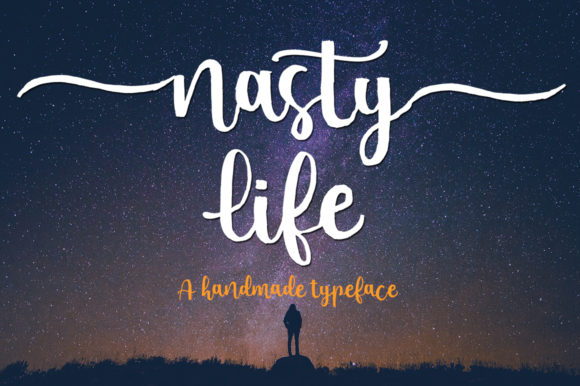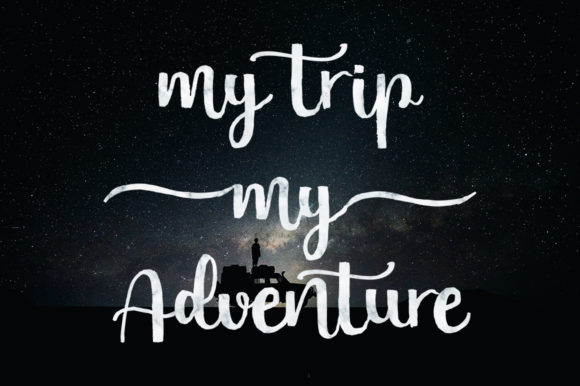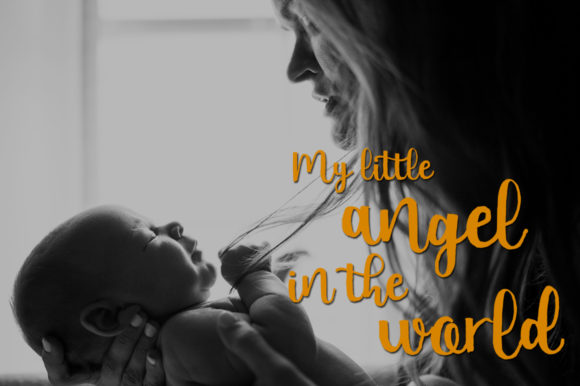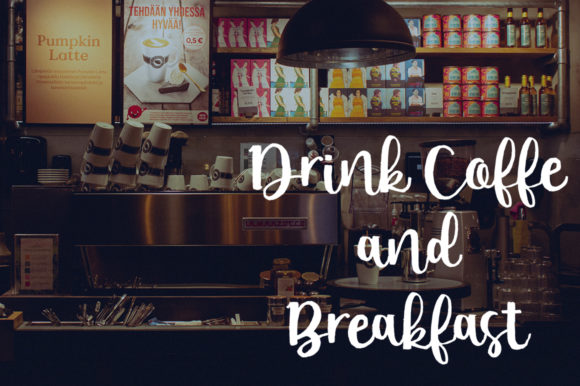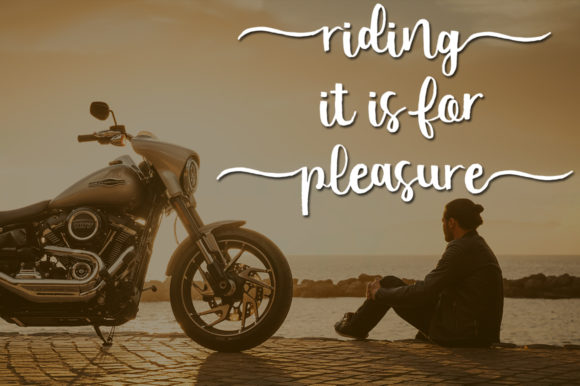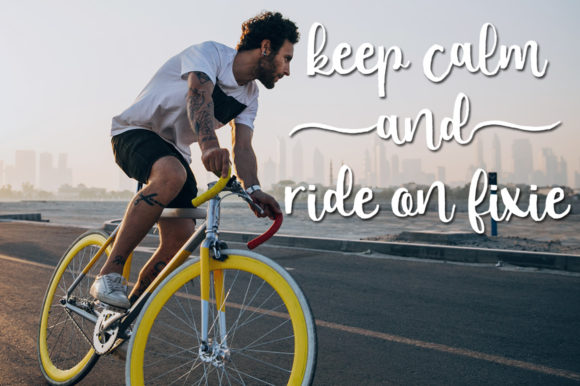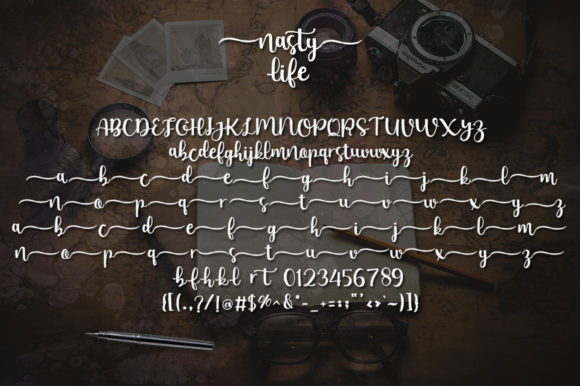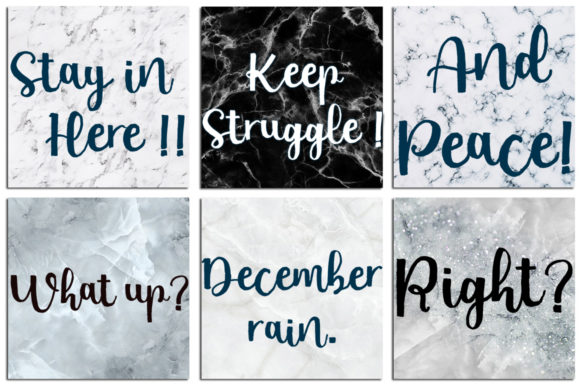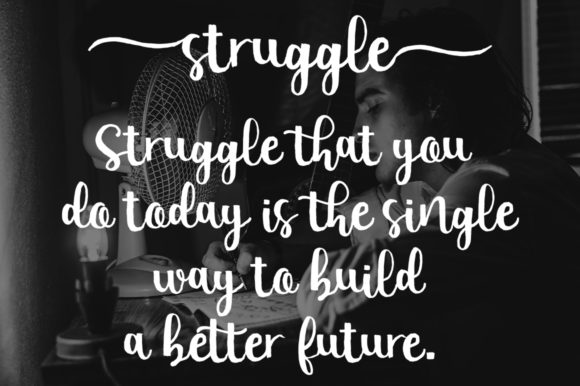
Nasty Life Font
About Nasty Life Font
Nasty Life is a beautiful hand-painted script featuring a dancing baseline. Use it for any design project that requires a personalized appearance!